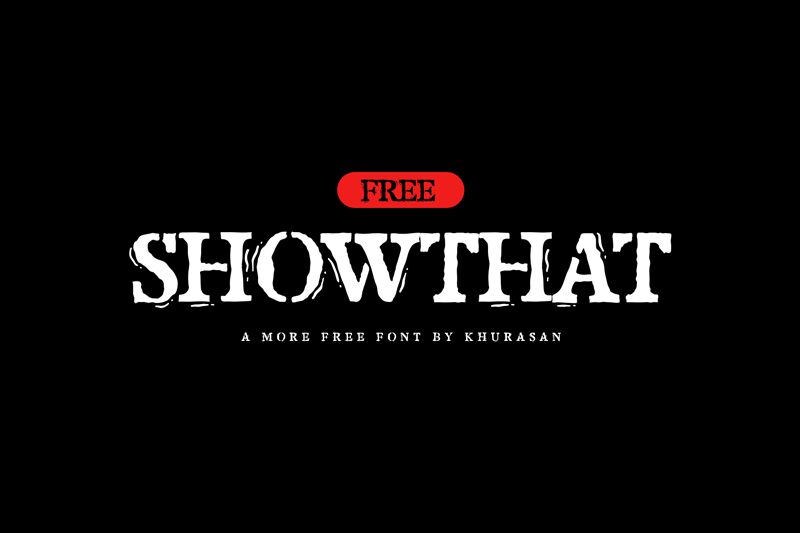
Showthat
Showthat, designed by Khurasan, is a standout display font that defies the ordinary with its distorted stencil aesthetic. Crafted with a semi-bold weight and a semi-expanded width, Showthat boasts an edgy charm that's both striking and functional.
The font's design delivers an unmistakable visual impact through its unique blend of distortion and precise cuts akin to stencil artistry. This tension between order and chaos gives Showthat a raw energy perfect for projects that aim to be bold and memorable.
Whether it's branding, poster design, or eye-catching headlines, Showthat is versatile enough to adapt to various contexts while maintaining its distinct character. The slightly rugged edges evoke a streetwise vibe that can resonate with contemporary audiences looking for authenticity in design.
Incorporating the spirit of rebellion into typography, Showthat by Khurasan is not just another font—it’s an artistic statement ready to elevate your creative endeavors with its undeniable presence.